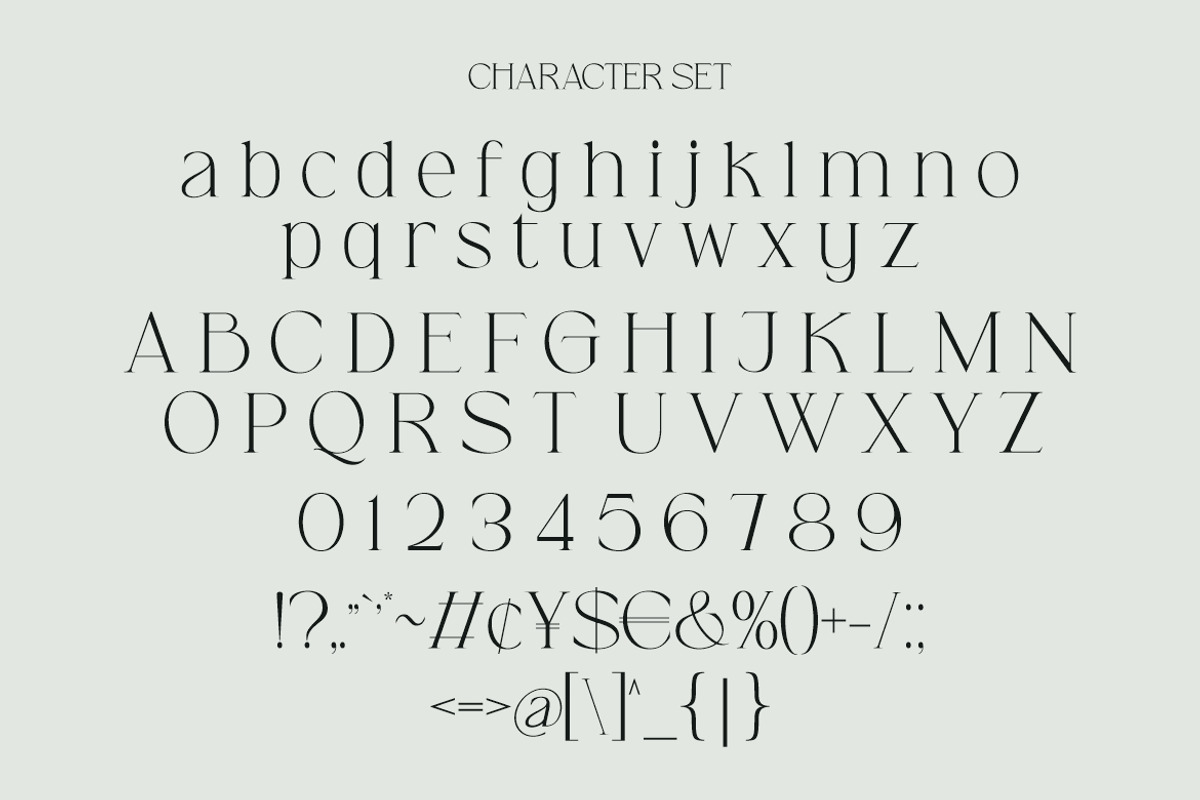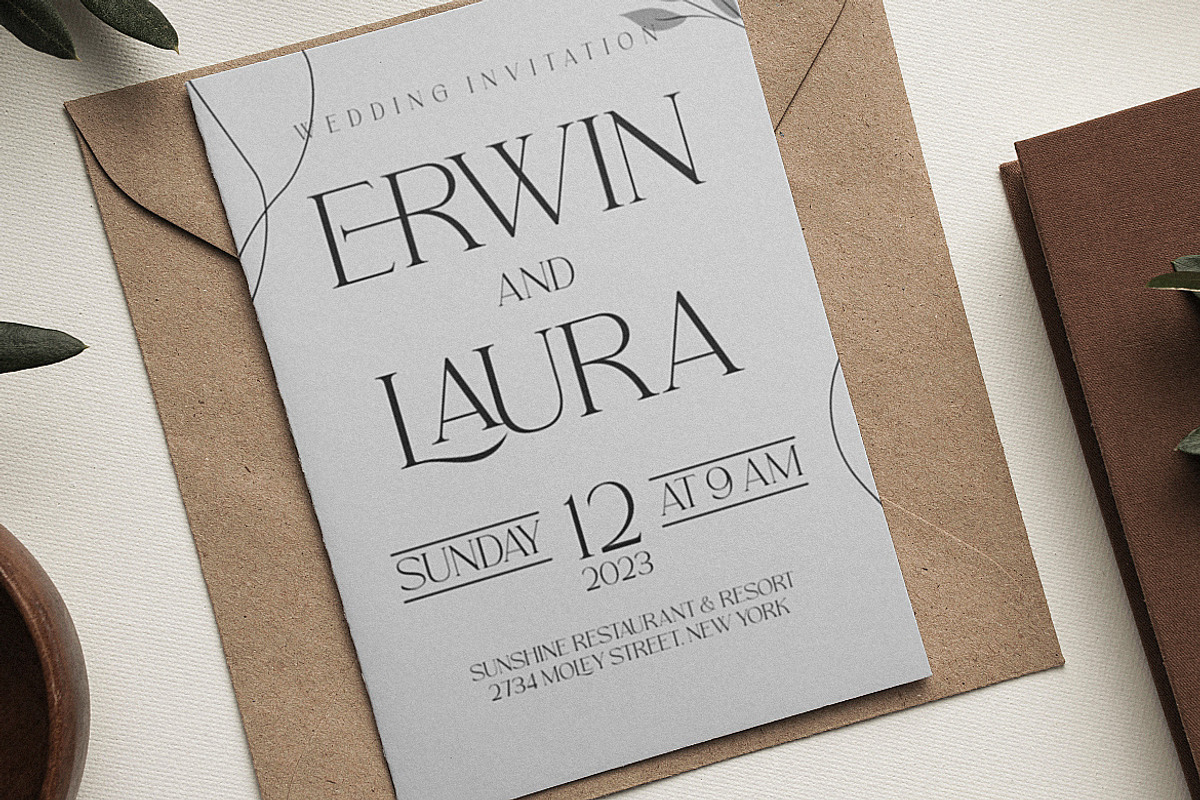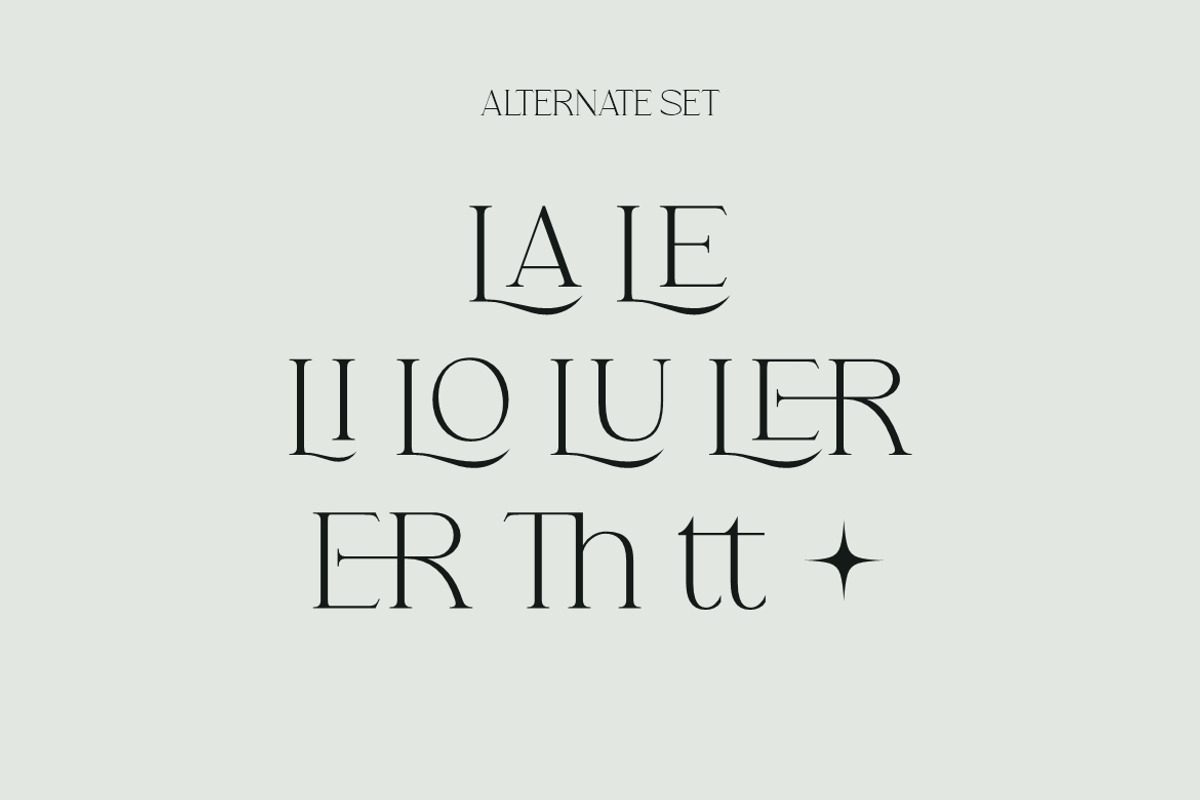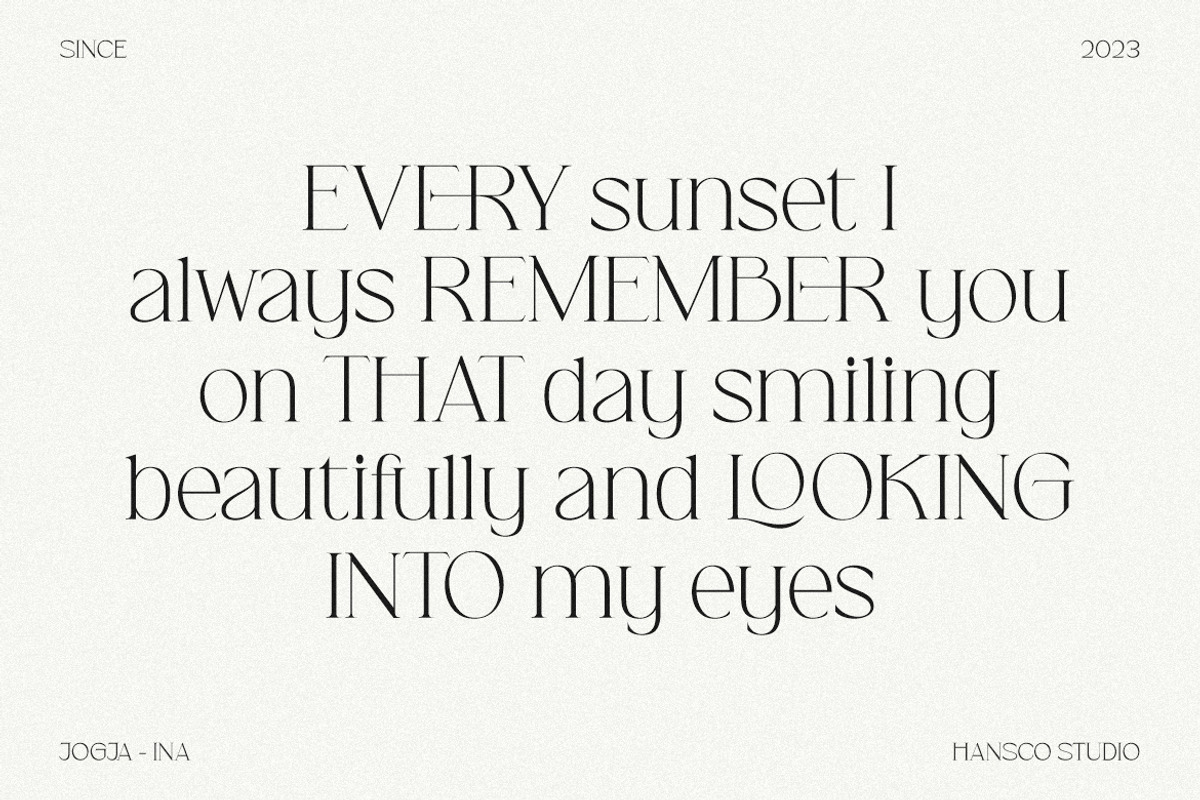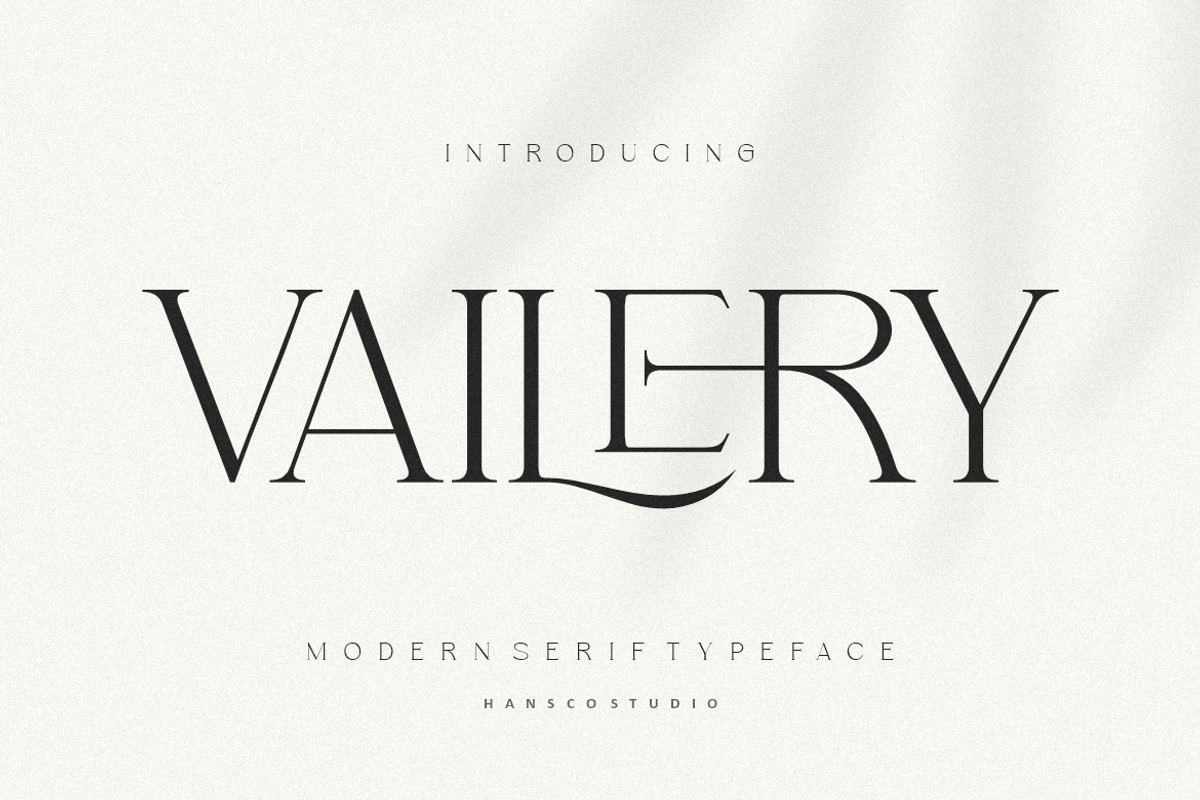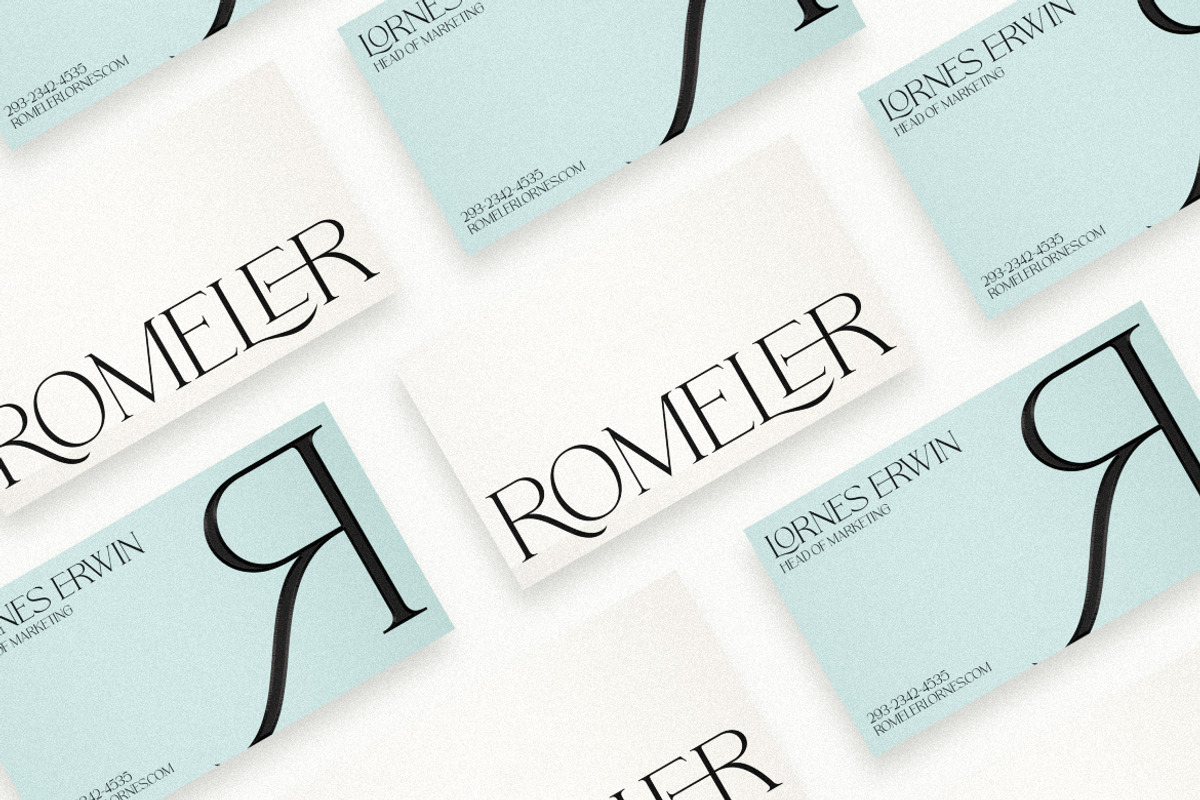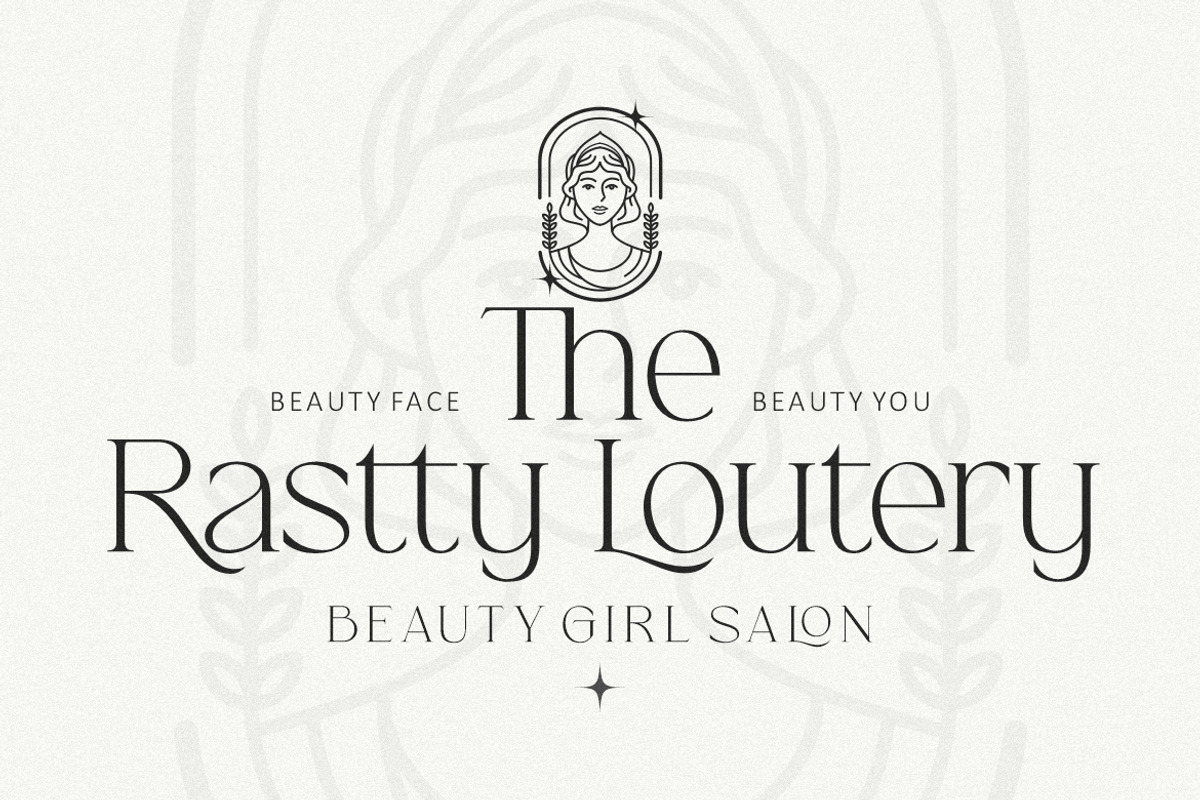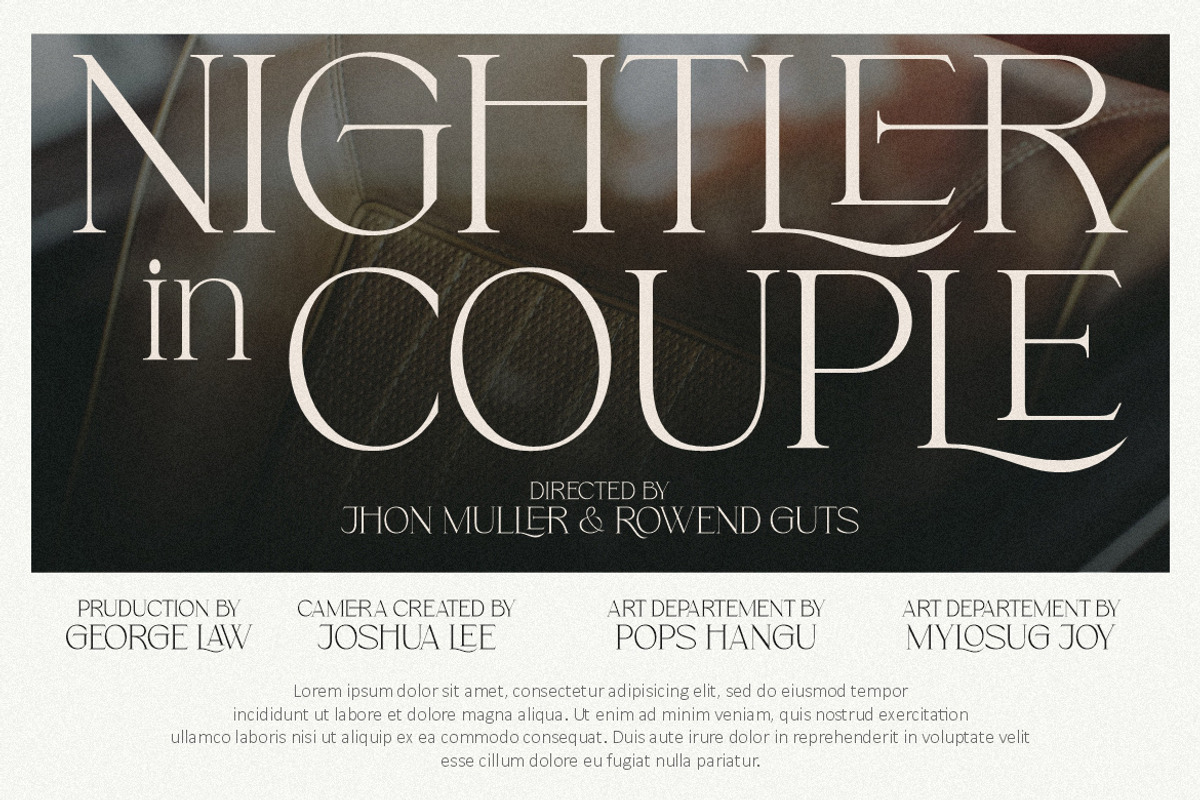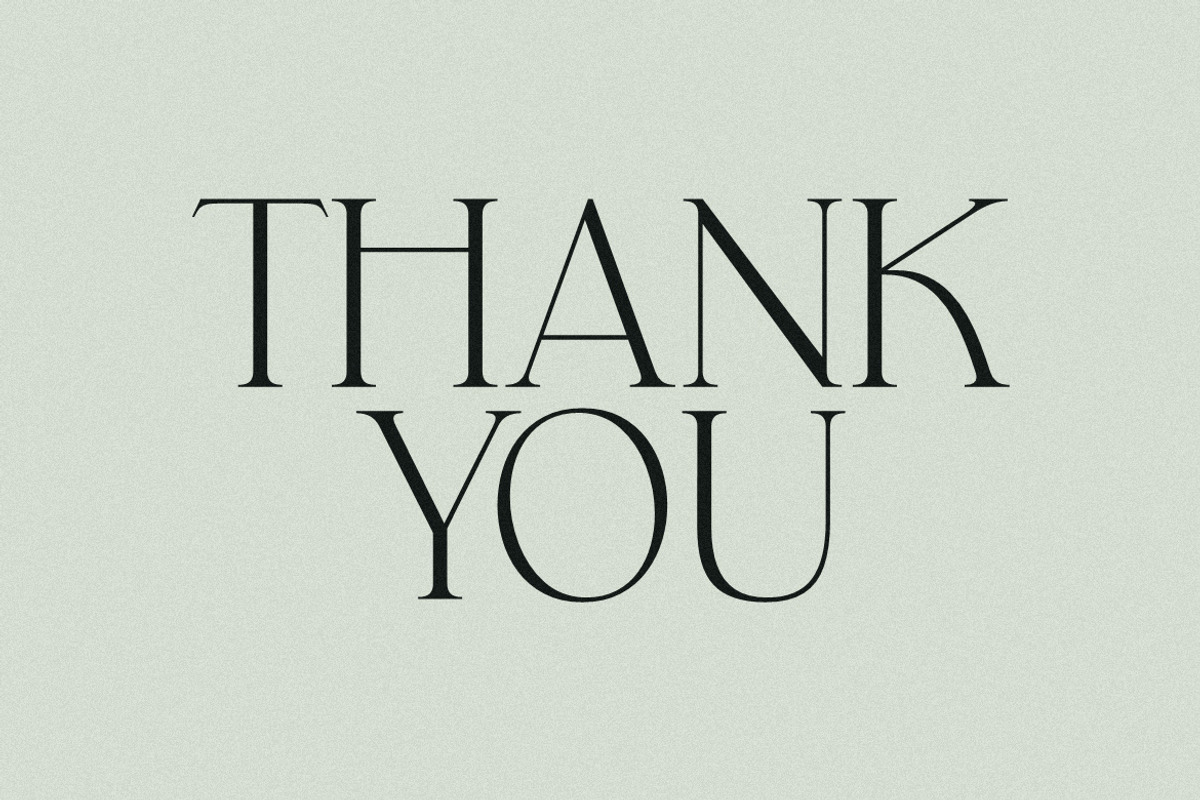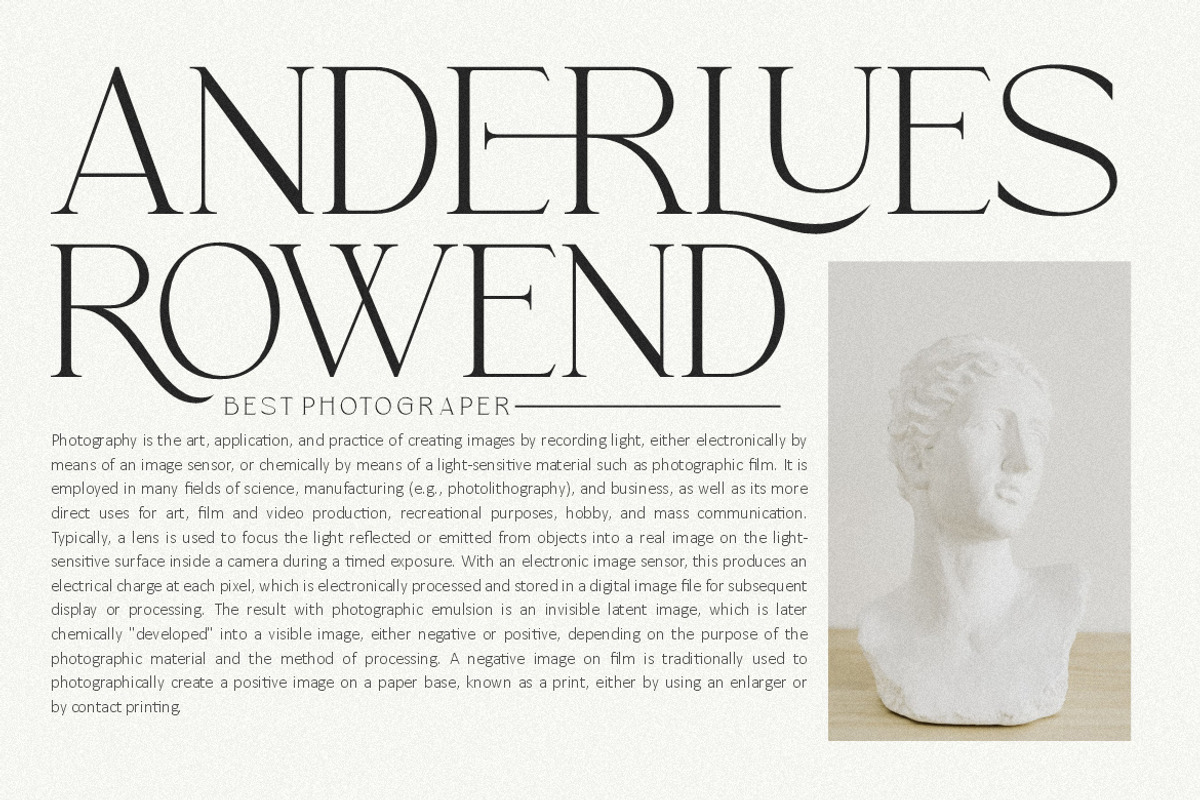
Vailery Font - Modern Serif Font
Vailery Serif Font is a elegant display serif font with modern look that is perfect for multipurpose projects. I made Vailery Serif Font inspired by the concept of romantic vibes and made it into a unique yet luxury style. This font is also looks fabulous and will fit well in any design and very recommended for logo, crafts, posters, books, branding, quotes, print templates, packaging, invitations, product labels, advertising, wedding project and more. This typeface comes in uppercase, lowercase, with punctuation, symbols, numerals, ligature and stylistic alternates. This font is PUA encoded which means you can access all of the charming glyphs and swashes with Character Map on Windows or Font Book on Mac.
- Alternate & Ligature character